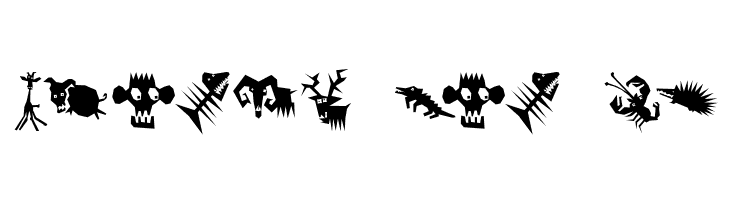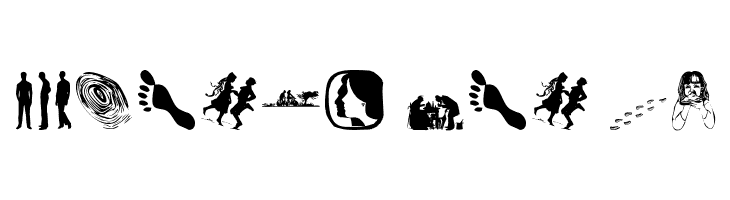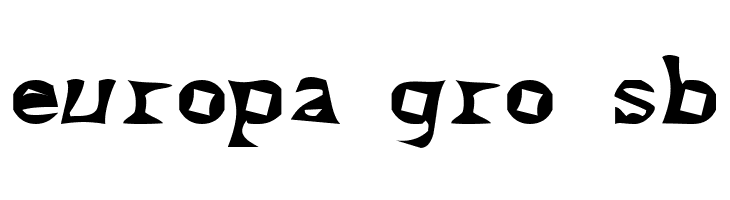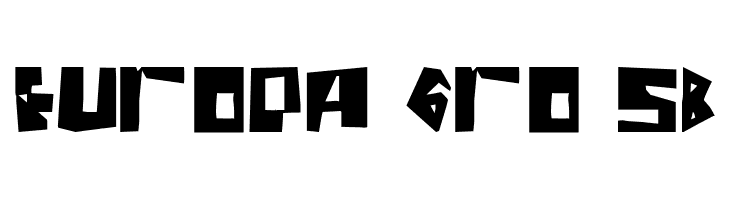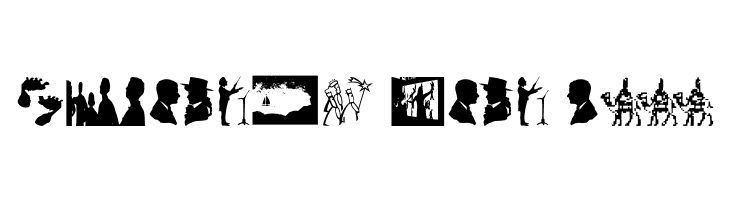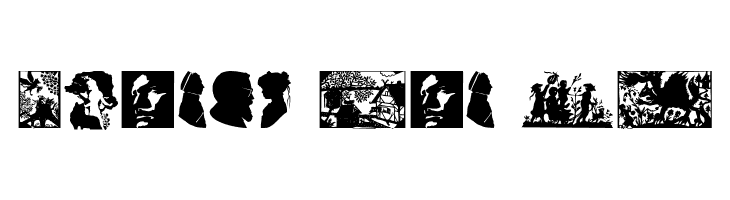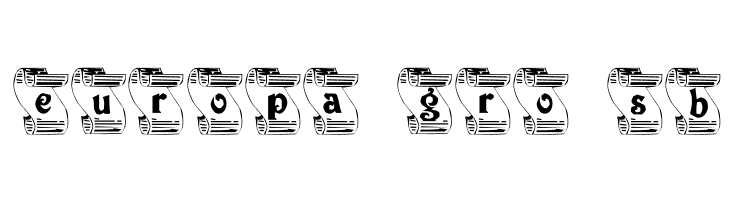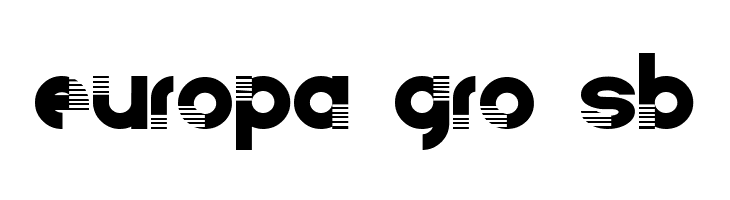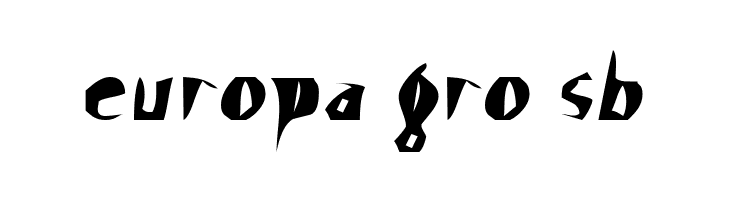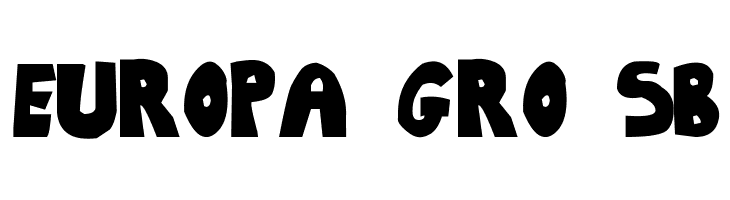
Running With Scissors Font
A bold, playful font with a hand-cut, whimsical style.
Rock, Paper, Scissors Font
A playful font featuring scissors, paper, and rock motifs for a whimsical look.
Scissor Cuts 2 Font
A bold, angular font with a handcrafted, edgy style.
Scissor Cuts Font
A bold, angular font with a handcrafted, paper-cutout style.
Sliding Scissors 101 Font
A bold, modern font with a unique striped pattern for dynamic visual impact.
Scissoria Font
A collection of intricate silhouette illustrations, not a traditional font.
Edward Scissorhands Font
A bold, edgy font with sharp, angular lines and a gothic style.
ScissorThree Font
A bold, angular font with a modern, abstract design.
ScissorCuts Font
An artistic and decorative font with intricate silhouette illustrations.
Scissor Madness DEMO Regular Font
A playful, bold font with a hand-cut, whimsical design.